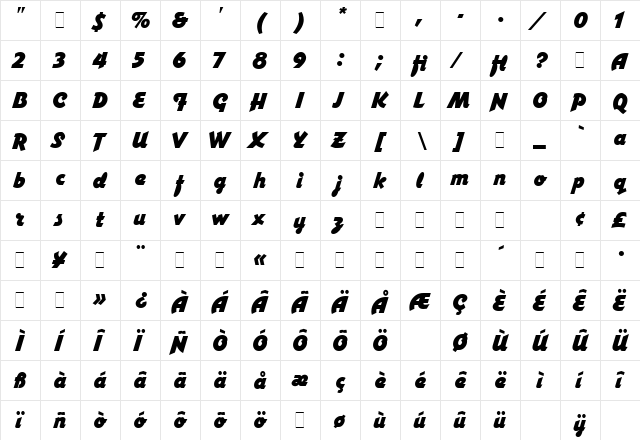
Varga LET Plain
Design Context for Varga LET Typeface
Varga LET takes a measured approach to typography — its balanced proportions and neutral character make it a reliable workhorse for both digital and print work.